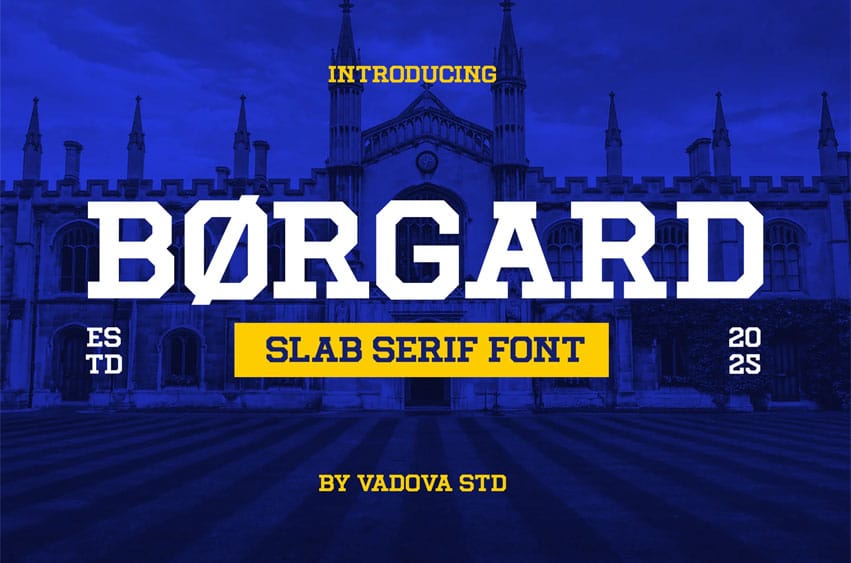
Borgard Font Elevate your designs with Borgard Varsity Font, a bold and dynamic varsity typeface that embodies the spirit of competitive sports and academic excellence. Designed with strong geometric forms and sharp edges, it reflects the classic lettering found on university jackets, sports jerseys, and athletic banners.
Its structured yet versatile design ensures high readability while maintaining a commanding presence, making it ideal for branding, merchandise, posters, and team logos. With a perfect blend of tradition and modernity, Borgard captures the essence of varsity culture, bringing energy and confidence to any creative project.